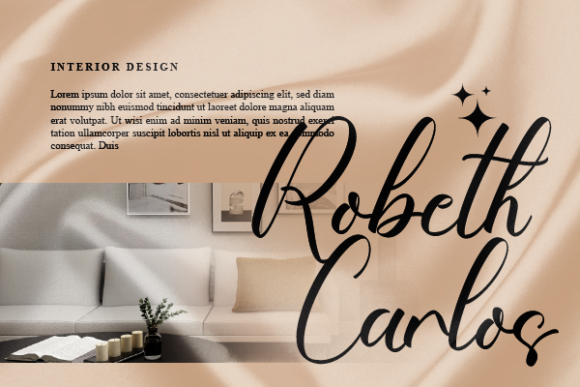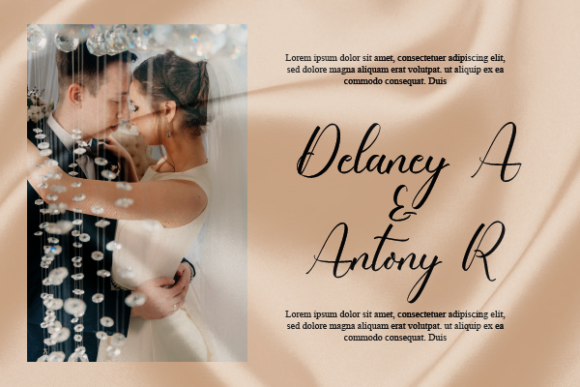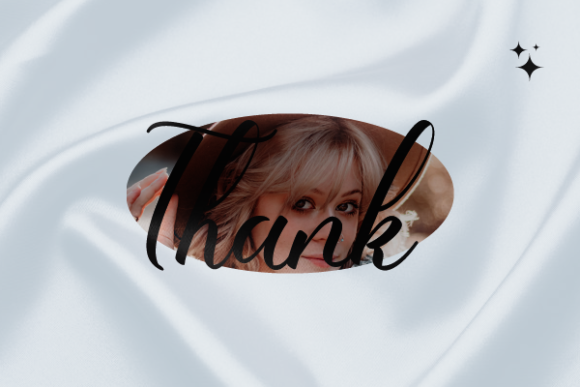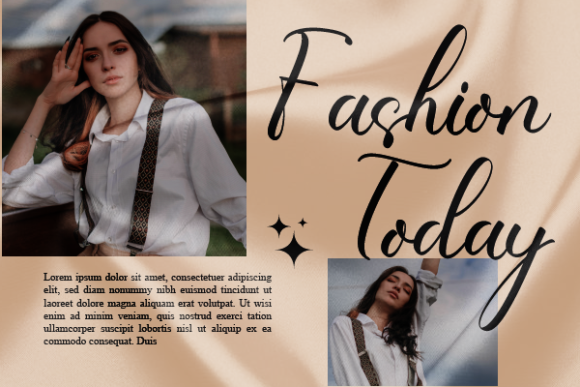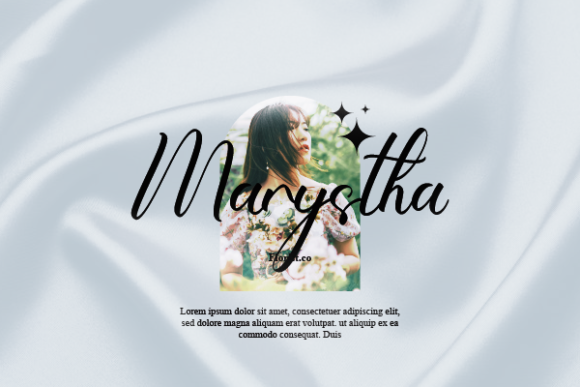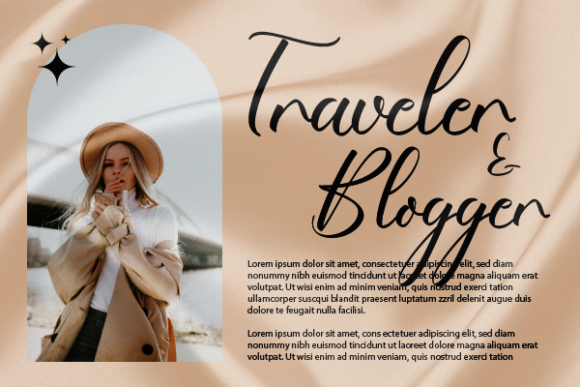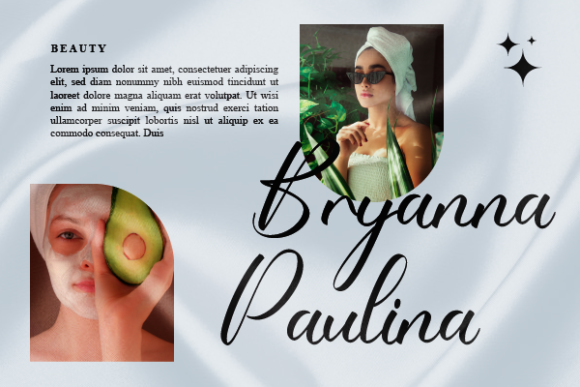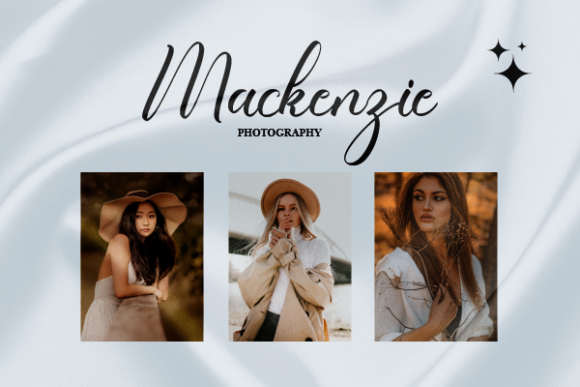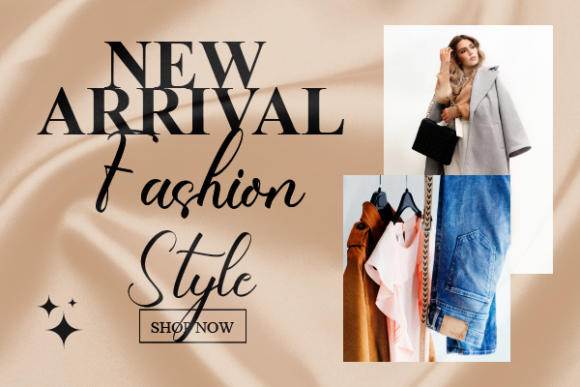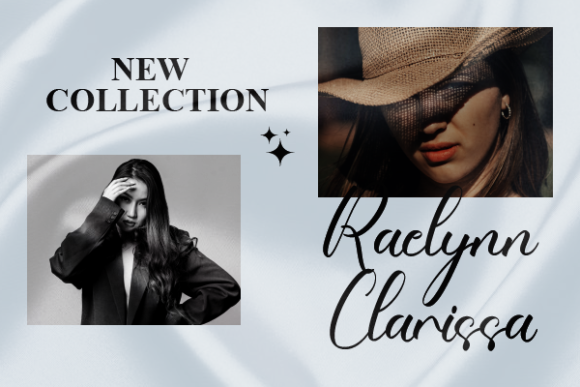
Shayla Font
About Shayla Font
Shayla is an exquisite and sophisticated script font that effortlessly captures a sense of delicate elegance and modern fashion. Its meticulously designed letterforms make it an ideal choice for a wide range of branding projects, infusing each application with a touch of luxury and creativity.
When utilized in logos, Shayla has the power to create a captivating and memorable visual identity for your brand. The font’s graceful curves and stylish strokes contribute to a unique and eye-catching logo that sets your brand apart. Whether showcased on business cards, packaging, or digital platforms, Shayla adds a distinctive and high-end element to your brand’s representation.
For t-shirt printing, Shayla adds a chic and fashionable flair to your apparel designs. Whether you’re incorporating a catchy slogan, an inspiring quote, or a captivating graphic, the font’s elegant script elevates your designs to the next level. From casual to upscale, Shayla complements a variety of fashion aesthetics, making your t-shirt designs truly stand out.
In the realm of creative products, Shayla’s versatility shines through. Its delicate and fashionable nature makes it a perfect fit for a range of items, from stationery and notebooks to home decor and accessories. The font’s sophisticated lines and refined curves enhance the visual appeal of your products, making them more enticing and desirable to your target audience.
Beyond its application in branding and products, Shayla is also well-suited for a variety of design contexts. Whether you’re crafting social media posts, designing invitations, or creating impactful posters, the font’s extraordinary appearance adds a layer of sophistication and modernity to your designs. Its timeless script imparts a sense of elegance and creativity to any project, elevating its overall visual impact.
In summary, Shayla’s delicate and fashionable script makes it a valuable asset for designers seeking to infuse their projects with a touch of luxury and creativity. Its adaptability and ability to enhance diverse design applications, from branding to creative products, ensure that your creations will radiate an exceptional and extraordinary charm.